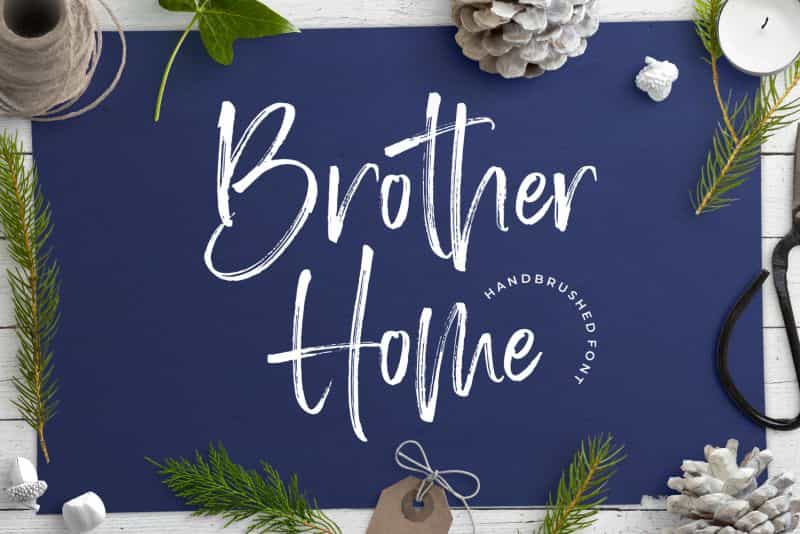
Introducing! Brother Home Brush Font A font that you were meant to find. A cute handwriting brush font that will make your designs much more beautiful than before.